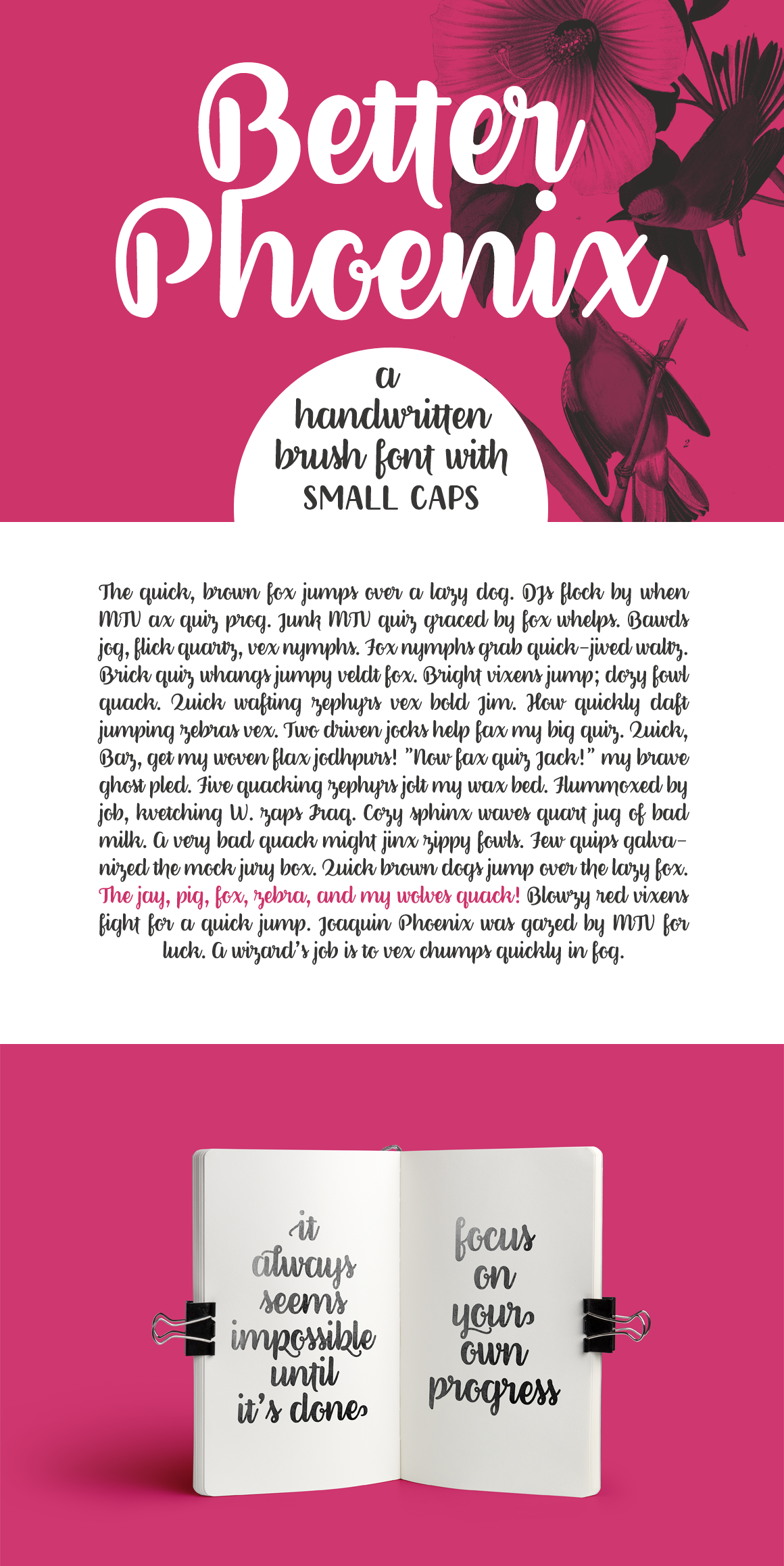
Better Phoenix brush font
Better Phoenix is a polished brush font, with 400+ glyphs, including:
- A-Z, a-z, 0-9, accents, punctuation and symbols
- Small Caps
- Contextual and stylistic alternates
It was carefully constructed from handmade brush strokes to have smooth lines and clean structure, but keep the playfulness of a handmade script font.
Better Phoenix is perfect for packaging and branding, and looks great in quotes, social media posts, and postcards. As a very legible font it can also be used as a display font in, for instance, editorial design, presentations, and logotype design. Because of its smoothness, it is also a favorite among crafters and craft cutters.